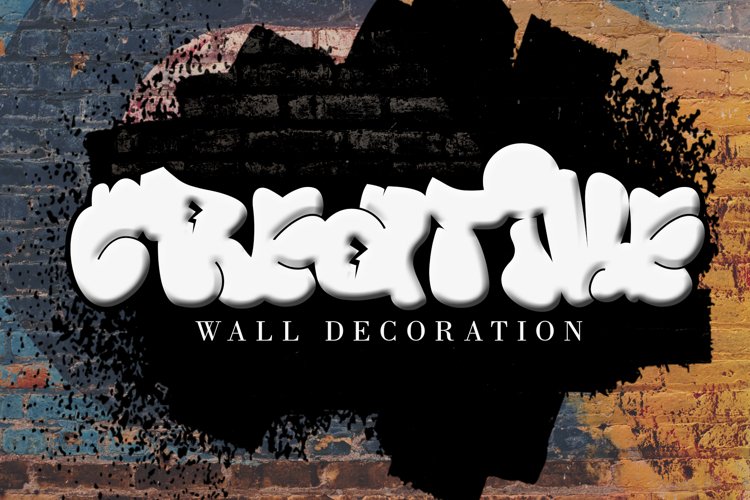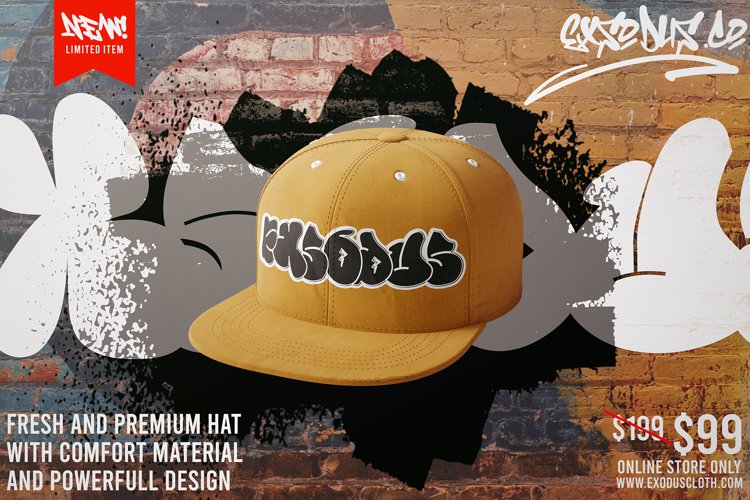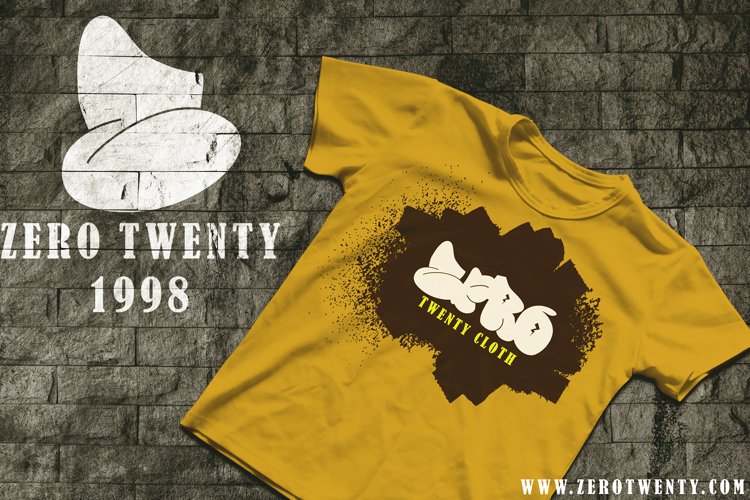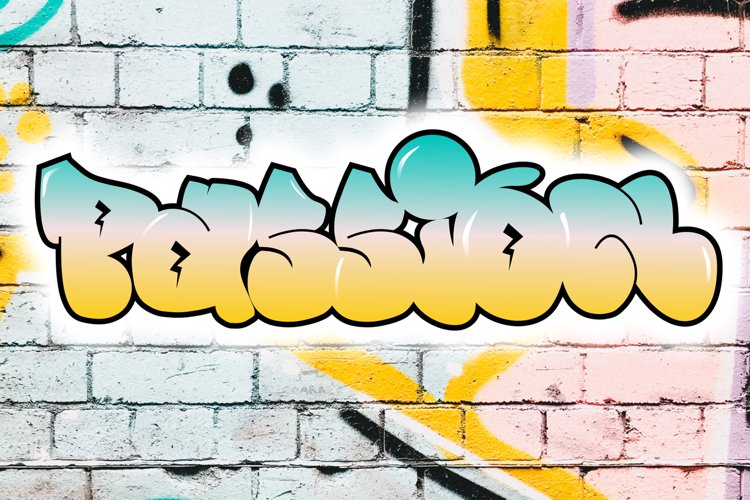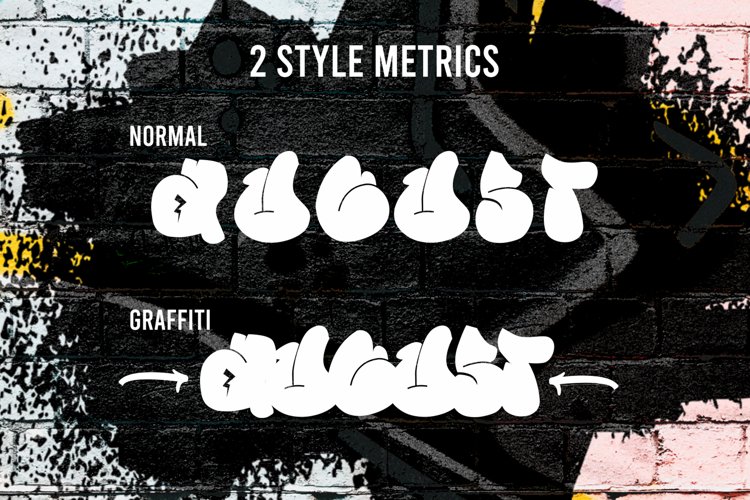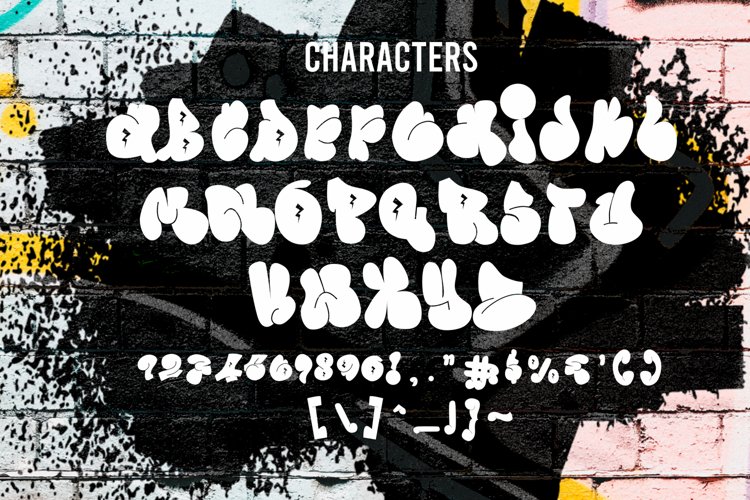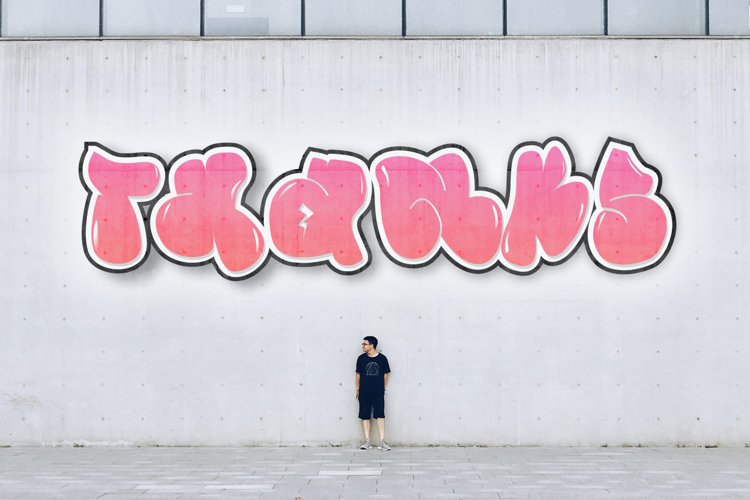
Wushand
Wushand is a spectacular decorative font with a graffiti style. It will elevate a wide range of design projects to the highest level, be it branding, headings, wedding designs, invitations, signatures, logotype, wall art illustration, apparel, labels, and much more!
• Uppercase
• Number and Punctuation
• Versatile for branding, headline, or printing product